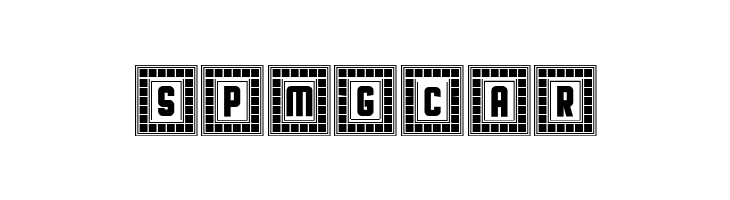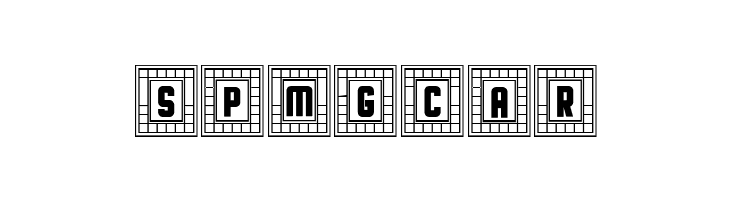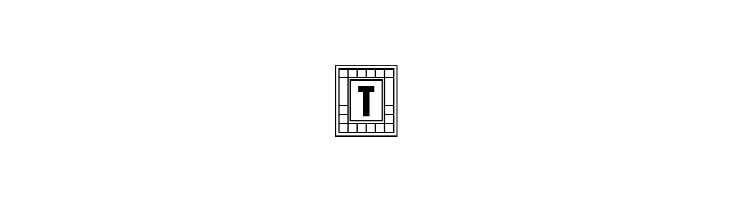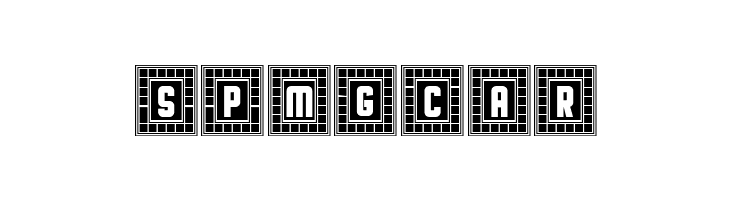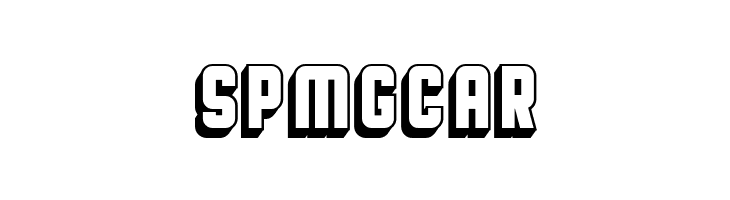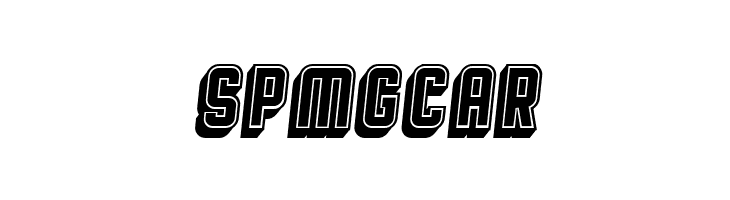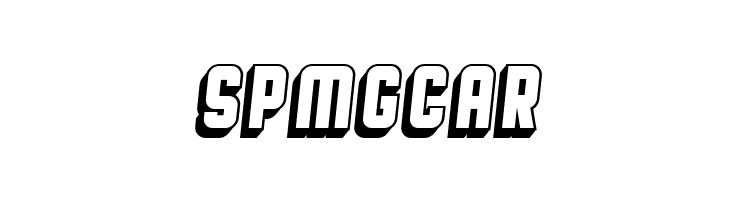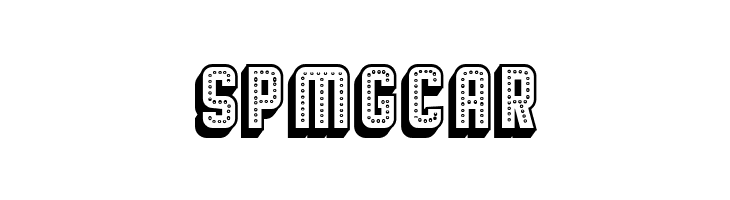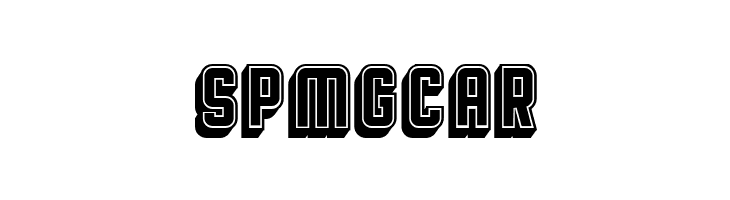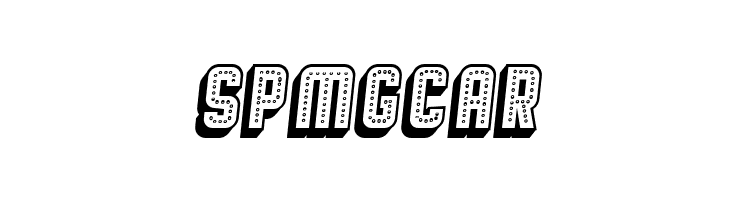
• Broadway 3D Italic
A bold, 3D italic font with a dotted outline and shadow effect.
• Broadway 3D Regular
A bold, retro 3D font with dotted interiors and strong shadows.
A bold, decorative font with a vintage marquee style and unique negative space design.
• Broadway Capitals Light Regular
A bold, decorative font with a vintage marquee light style.
• Broadway Capitals Negativ Regular
A bold, decorative font with a vintage theatrical style.
• Broadway Capitals Regular
A bold, decorative font with a vintage marquee style.
• Broadway Flat 3D Filled Italic
A bold, 3D, italic font with a modern and impactful design.
• Broadway Flat 3D Filled Regular
A bold, 3D decorative font with a flat, filled style.
• Broadway Flat 3D Italic
A bold, 3D italic font with a flat, modern design.
• Broadway Flat 3D Regular
A bold, 3D geometric font with a modern, impactful style.